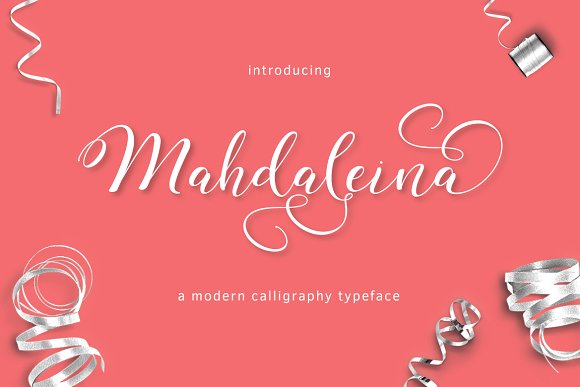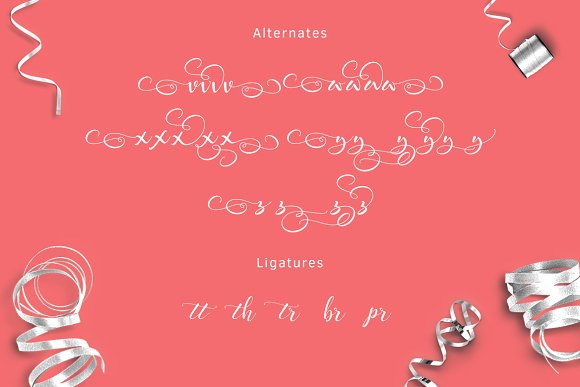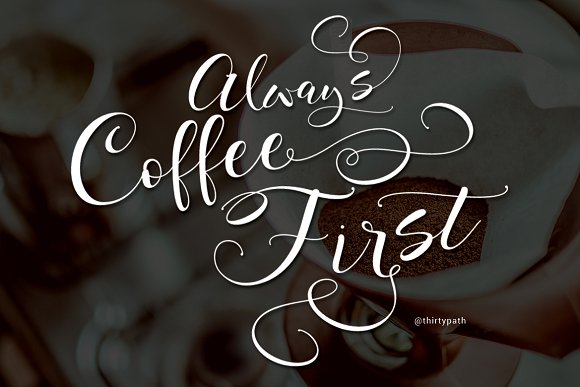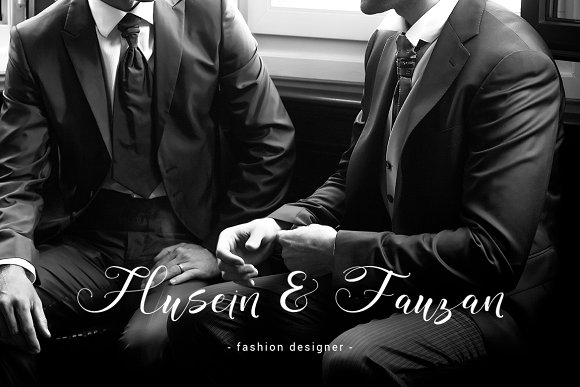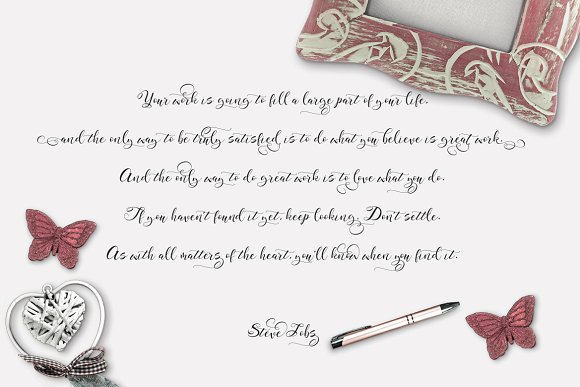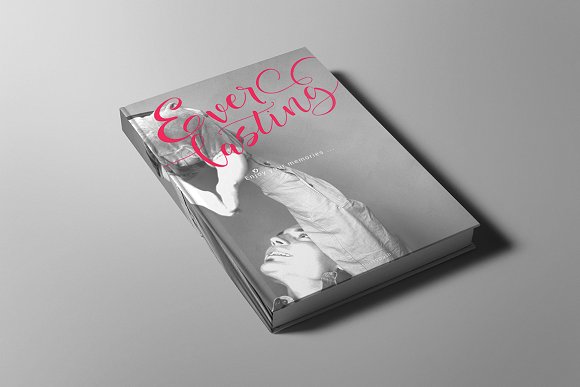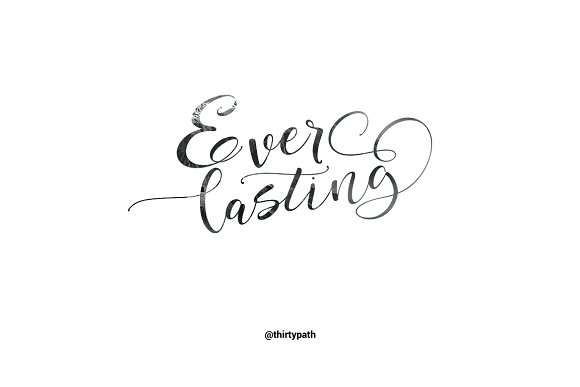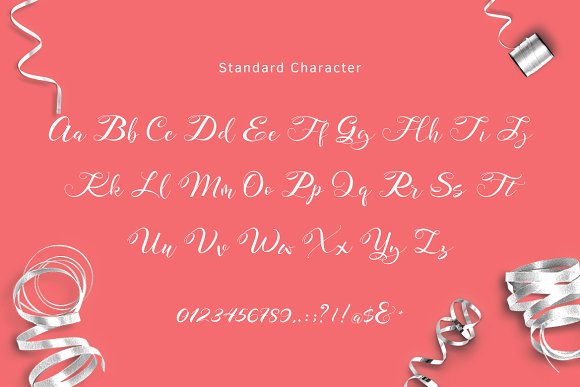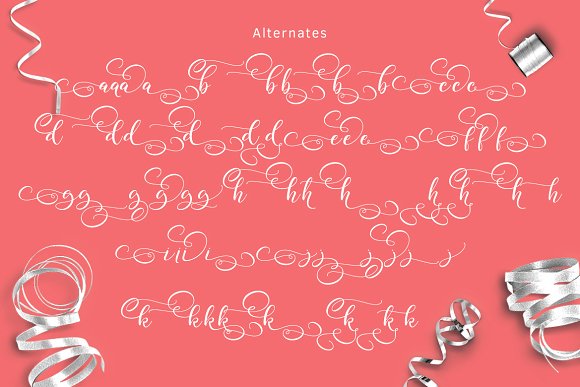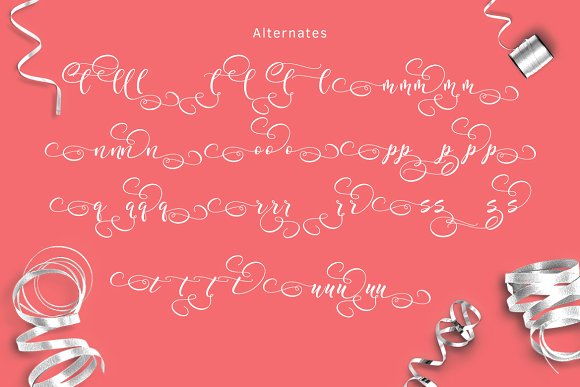
Mahdaleina Font
About Mahdaleina Font
Mahdaleina is a modern calligraphy font tha thas been carefully crafted to look smooth and work well in many different personal-style projects.